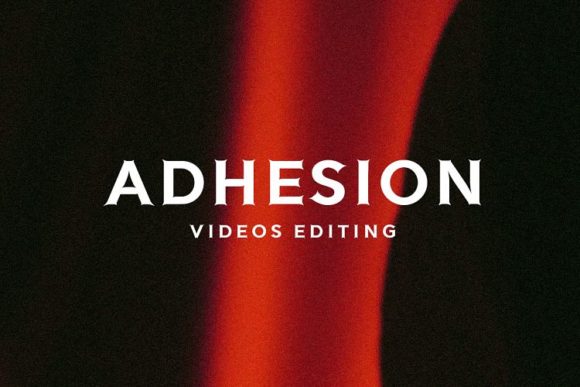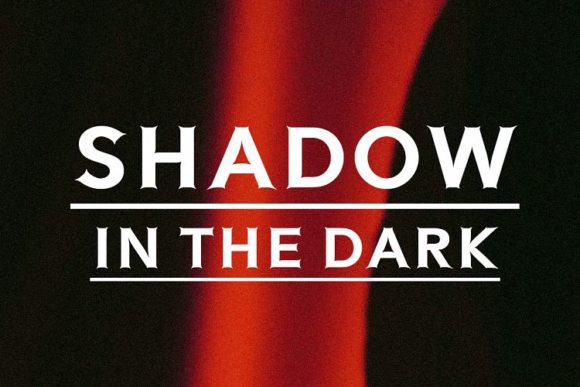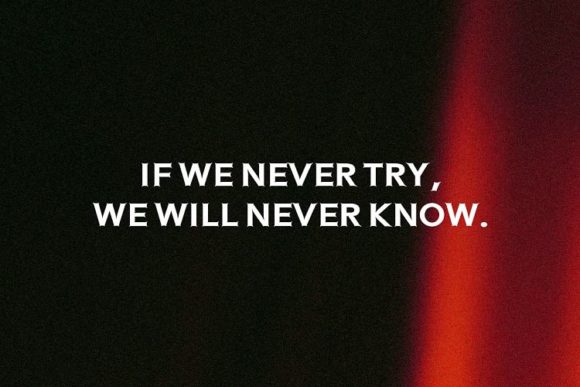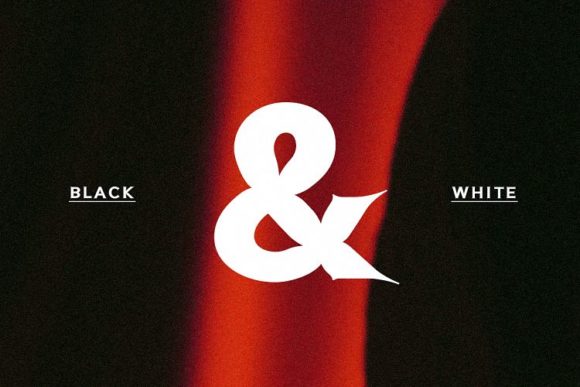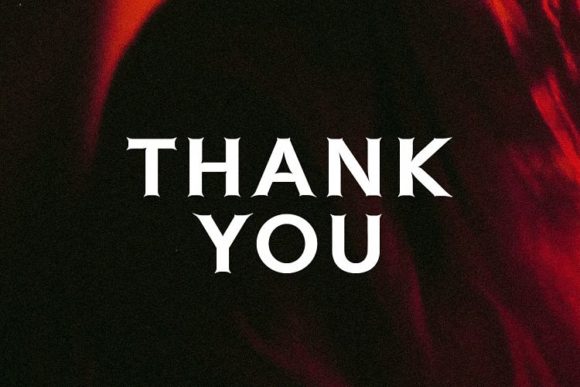
Have you ever stared at a blank page, wondering how to bring your design to life? Maybe you’re working on a branding project, and you need a font that screams “I’m here to make a statement!” That’s where the Alized Font comes in – a powerful display font that’s perfect for making a bold impression. With its unique style and versatility, it’s no wonder designers are turning to Alized Font for their most ambitious projects.
Whether you’re creating a poster, a magazine title, or a logo, the Alized Font is a valuable addition to any designer’s toolkit. Its sleek lines and modern aesthetic make it a great choice for any creative project that needs a little extra oomph. And with its endless customization options, you can tailor the Alized Font to fit your unique style and vision.
- Font Family: Alized is a modern sans-serif font designed for digital media.
- Unique Characteristics: Alized features a unique blend of geometric and organic elements, resulting in a distinctive and modern aesthetic.
Alized Font Review
Alized Font, designed by Typetype, caught my attention with its unique blend of futuristic and minimalist elements. Here’s my honest review:
- The bold and playful feel of Alized makes it perfect for headings and titles.
- The font’s sleek, geometric lines give it a modern and futuristic vibe.
- The font family includes a range of weights and styles, making it versatile for various design applications.
- The font may not be suitable for body text, as it can be difficult to read at smaller sizes.
- The lack of italic and oblique styles might limit its use in certain design scenarios.
- The font’s futuristic feel might not be suitable for all design projects, particularly those requiring a more traditional or vintage look.
Overall, Alized Font is a great choice for designers looking for a bold and modern font to add some flair to their designs. However, its limitations should be considered before making a final decision. With some careful planning and selection, Alized can be a valuable addition to any design project.
The Alized Font is ideal for creating eye-catching headings and titles. Use it to add a touch of sophistication to your designs. It’s also great for creating quotes and captions that need a bit of flair.
The Alized Font is commonly used in:
– Magazine and newspaper headings
– Social media posts and captions
Exploring the Alized Font in Creative Projects
Project 1: Alized Typography Mural
The Alized Font mural project combines intricate typography with vibrant colors to create an eye-catching visual display. By using Alized Font in a large-scale format, artists can convey a message or tell a story in an innovative and engaging way.